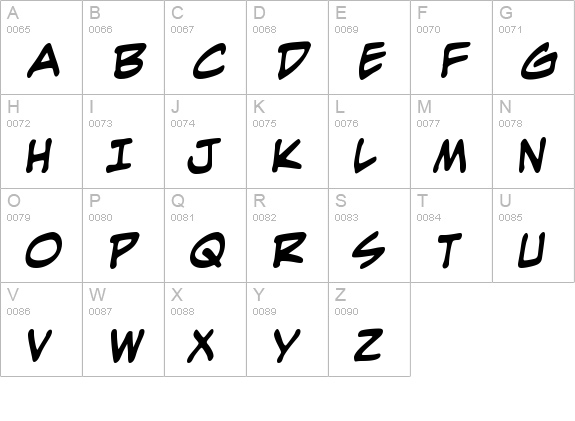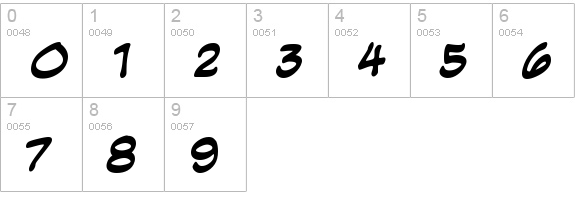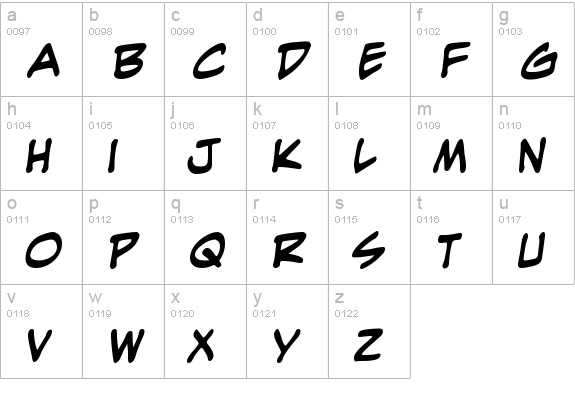
EvilGenius BB Bold Font Details
EvilGenius BB Bold is a strong, high-contrast variant in the EvilGenius typeface family \xE2\x80\x94 well suited to headlines, attention-grabbing titles, and strong calls-to-action.
EvilGenius BB Bold font is a striking and bold typeface that exudes a sense of power and mystery. Its sharp edges and strong presence make it perfect for creating attention-grabbing headlines or eye-catching designs. The intense and commanding look of EvilGenius BB Bold font is sure to make a lasting impression on any project. What's even better is that EvilGenius BB Bold font is available for free download at FontsMarket.com. This means you can easily add this captivating font to your collection without any cost. Don't miss out on the opportunity to enhance your designs with the bold and menacing style of EvilGenius BB Bold font - download it for free today!